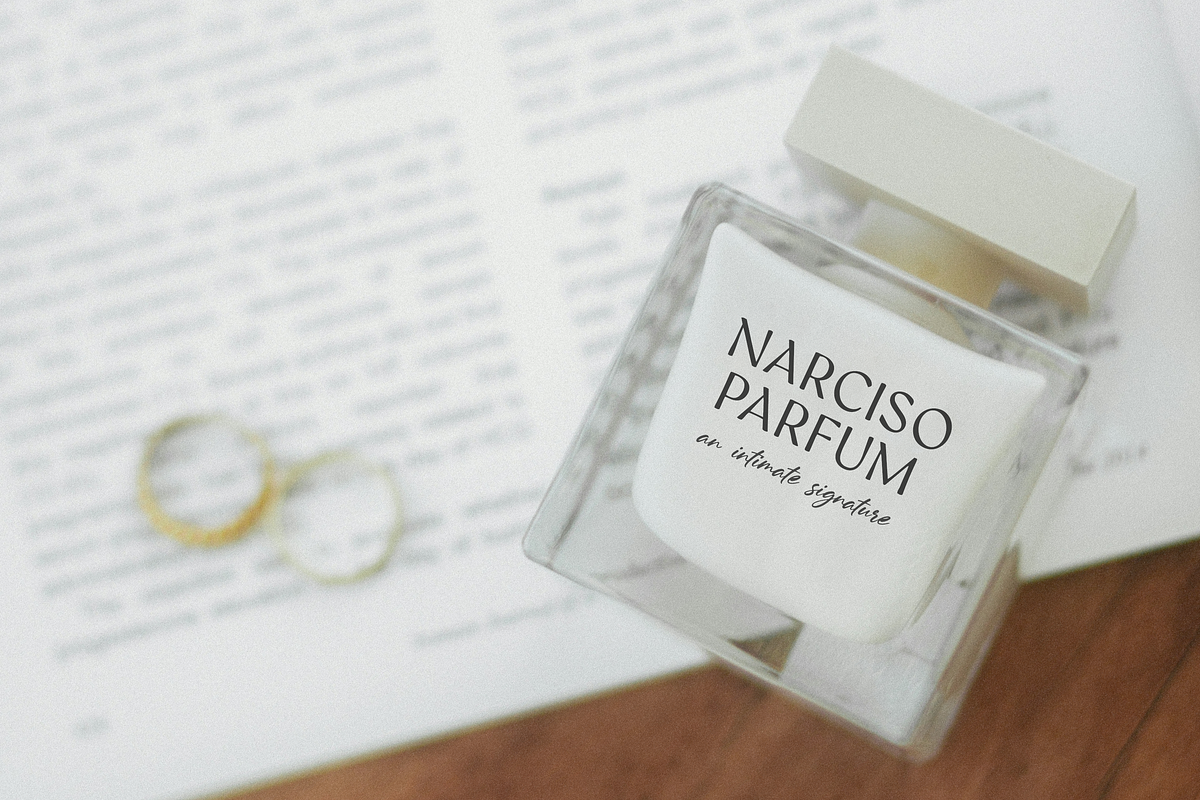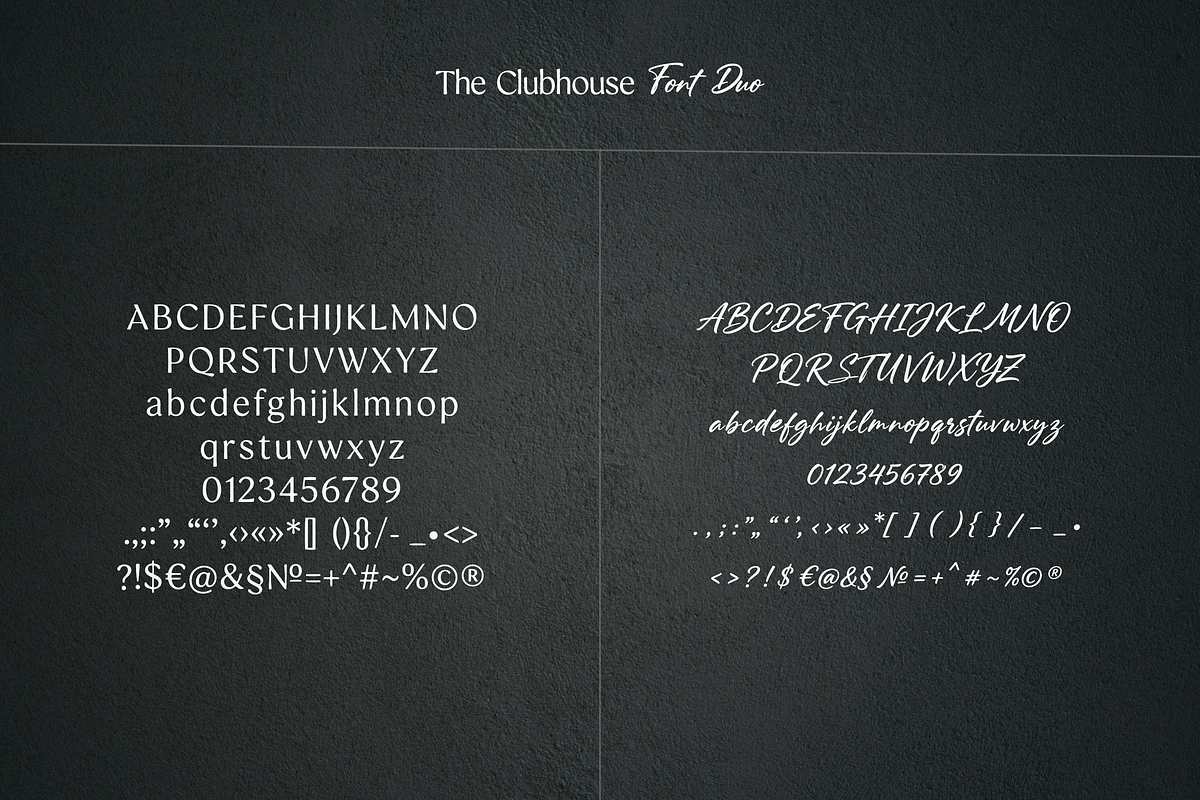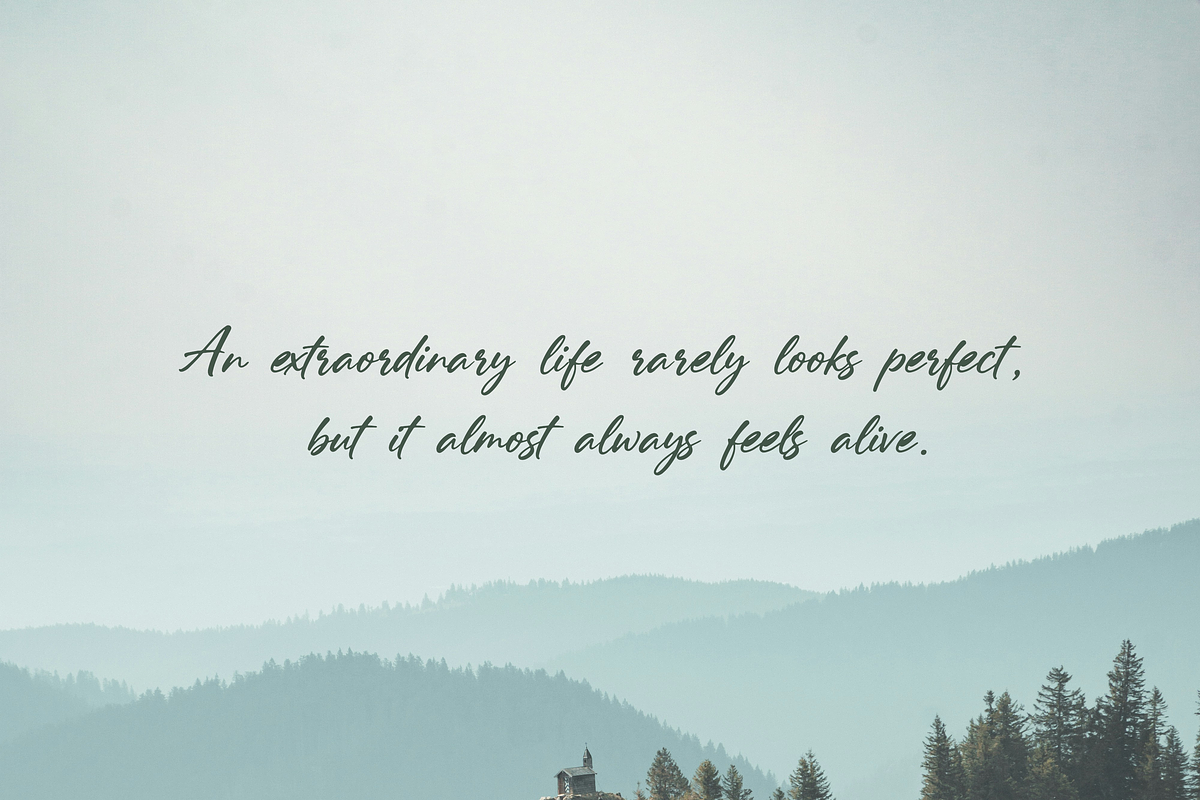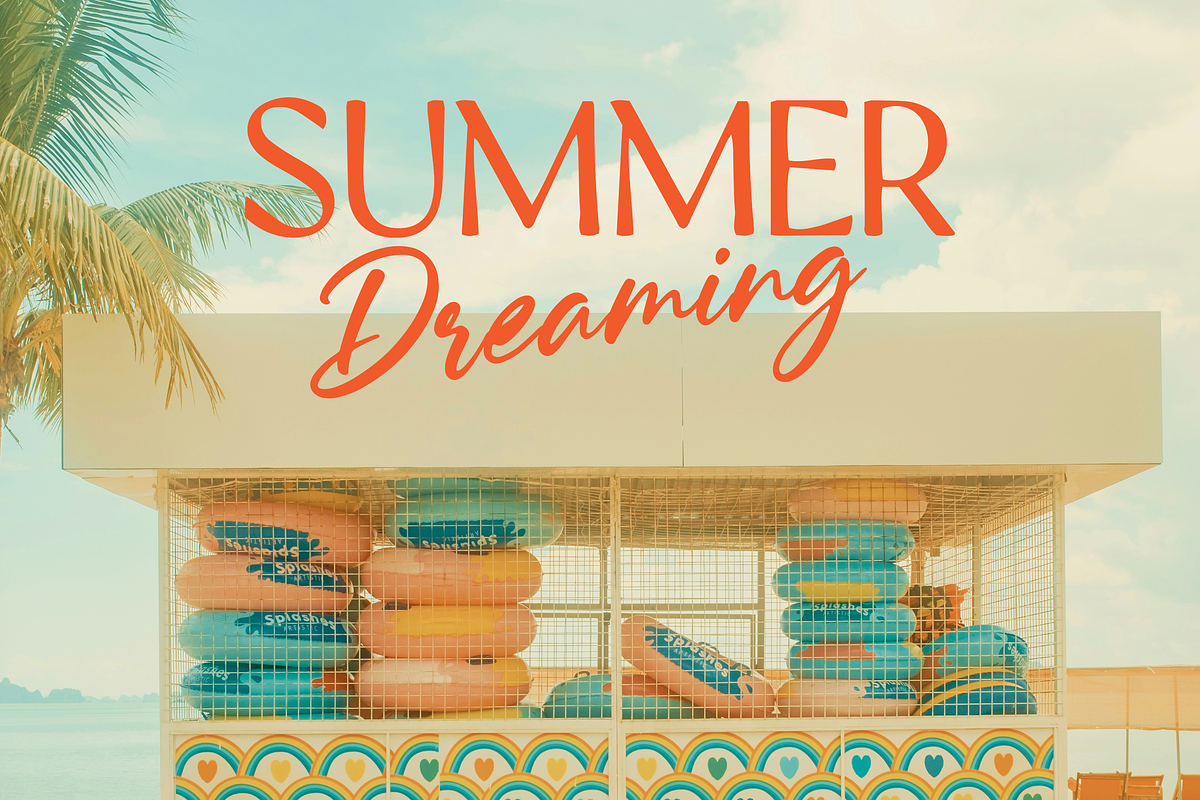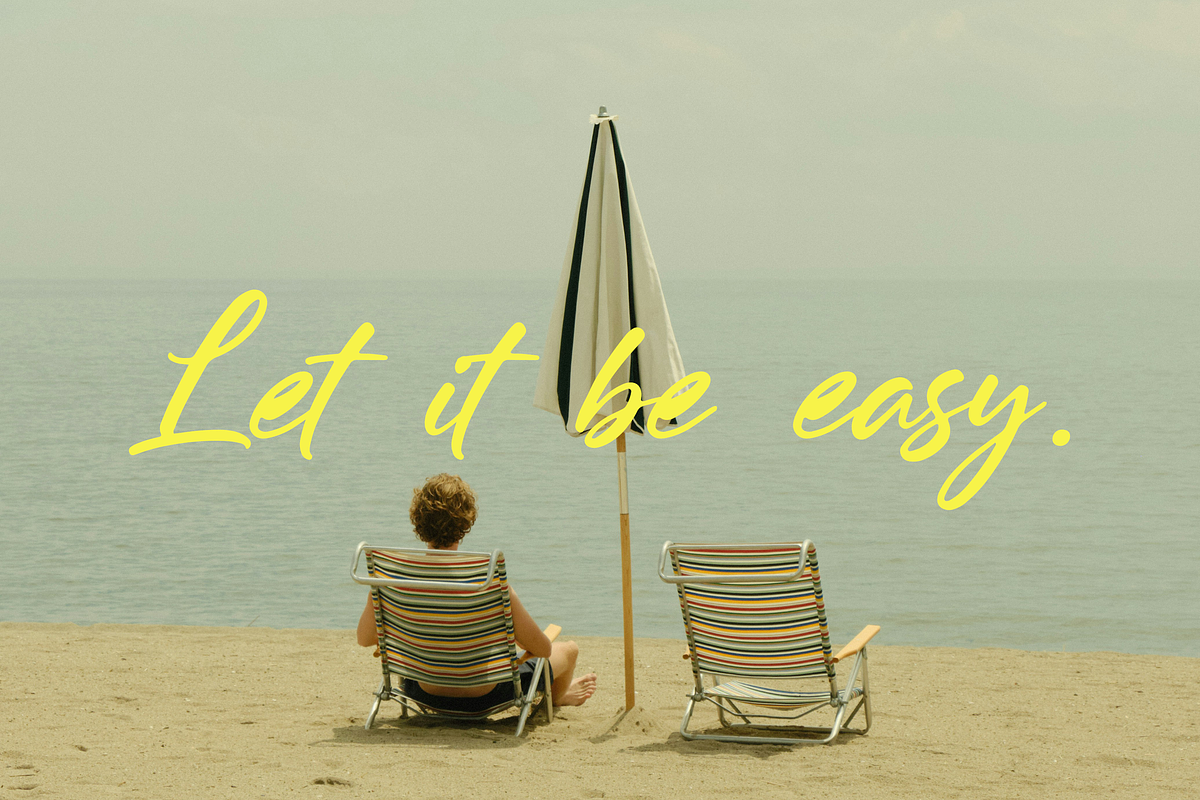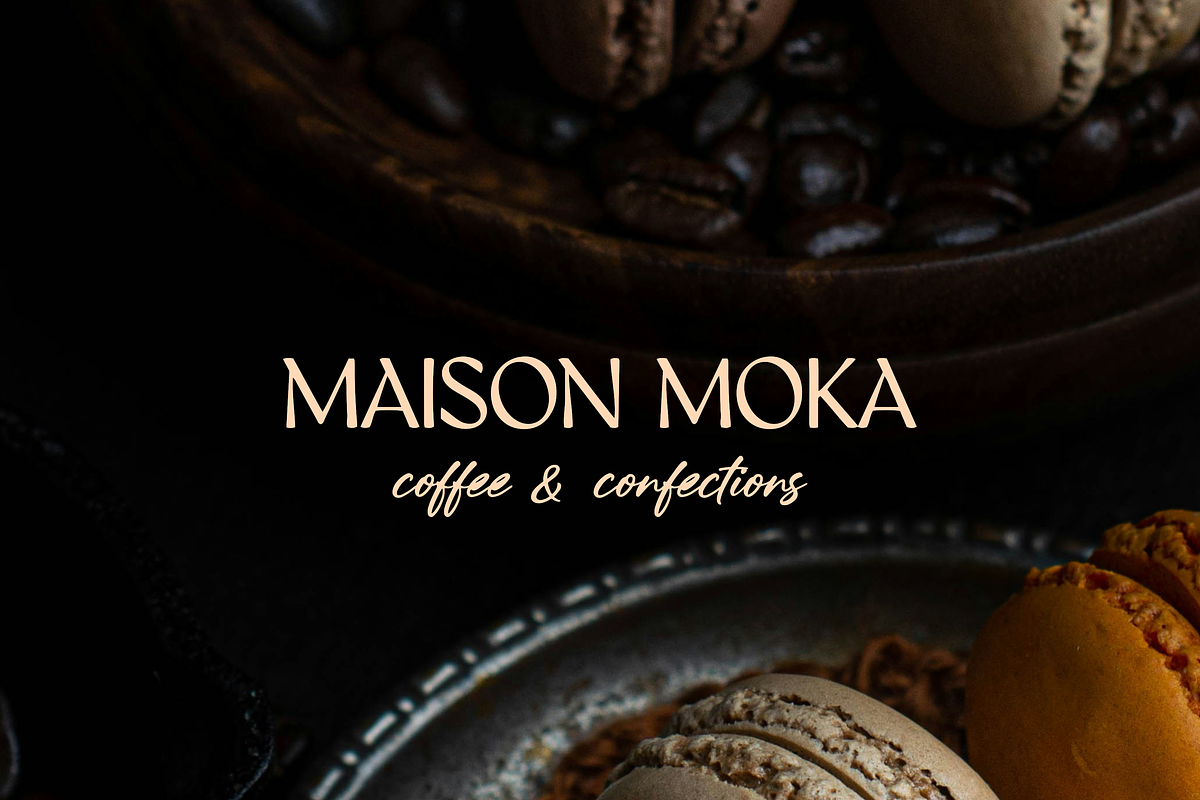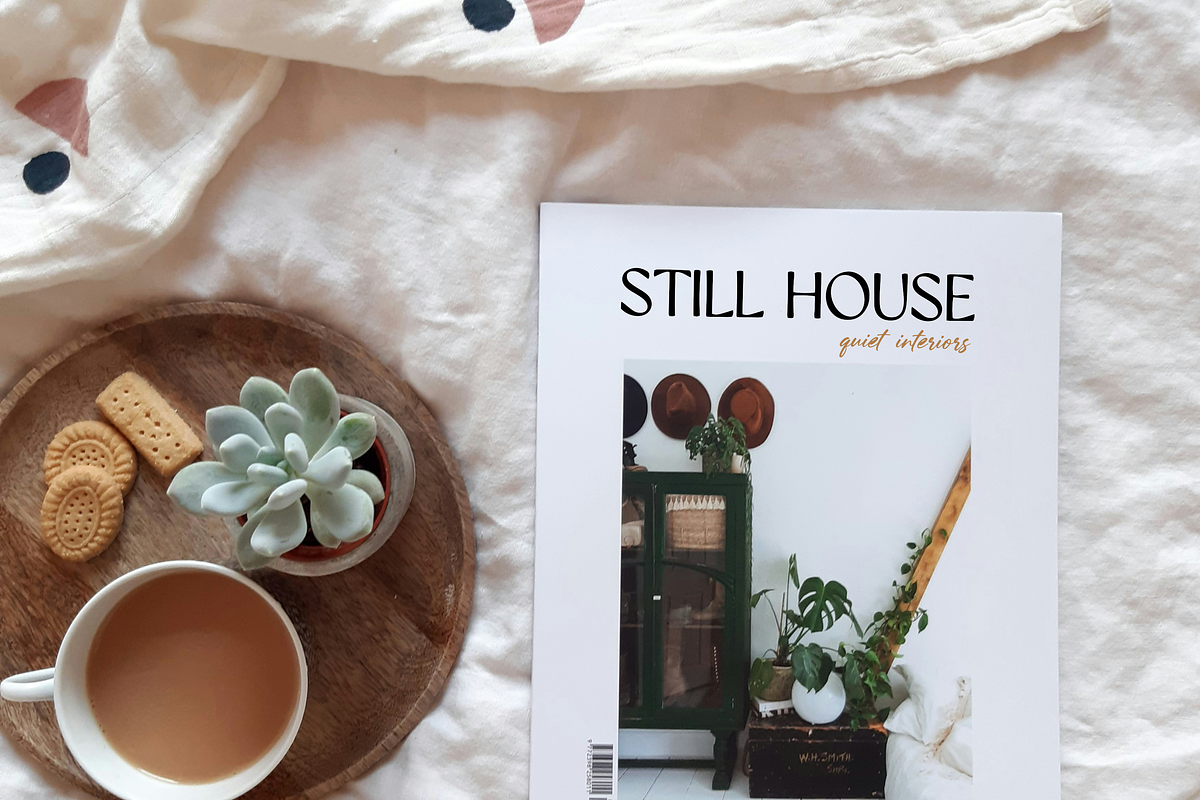
The Clubhouse Font Duo
The Clubhouse is a stylish font duo featuring a refined display serif and a relaxed handwritten script. Perfect for branding, logos, packaging, editorials, invitations, social media, and modern visual identities.